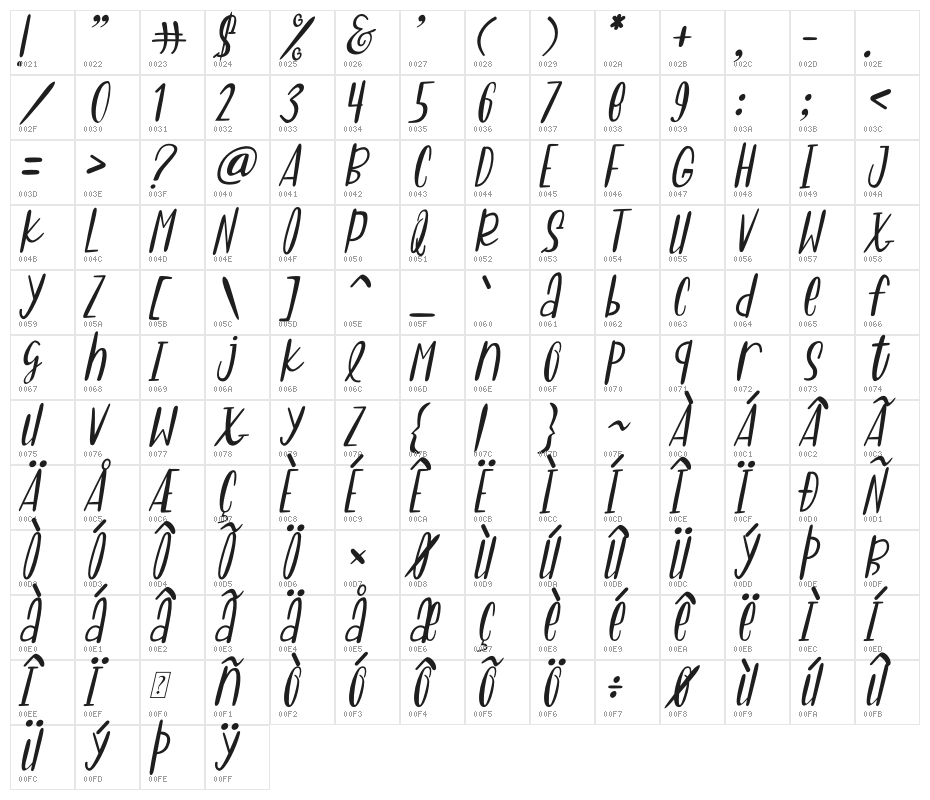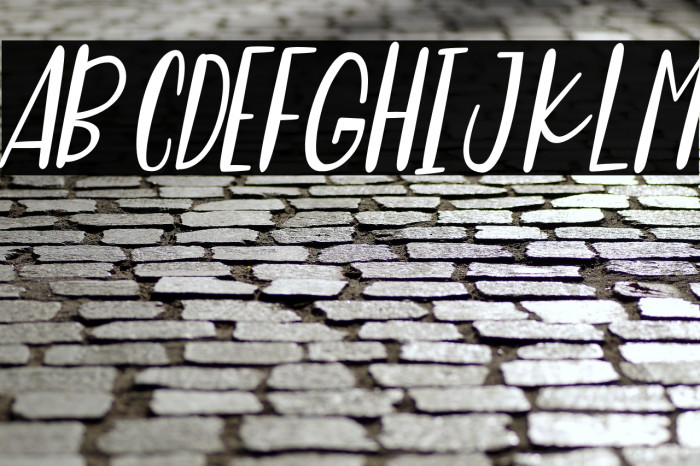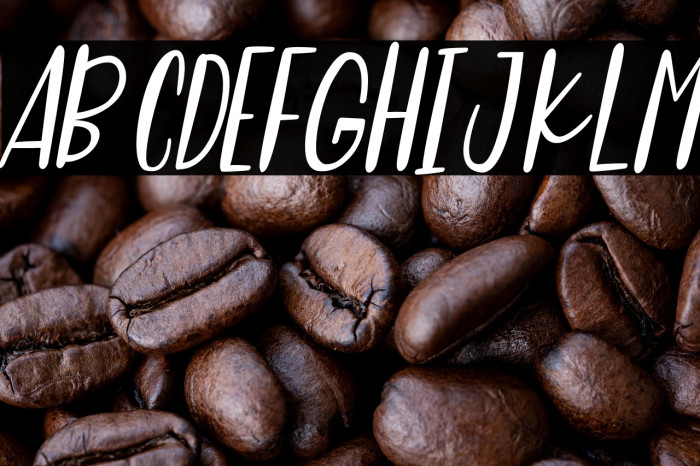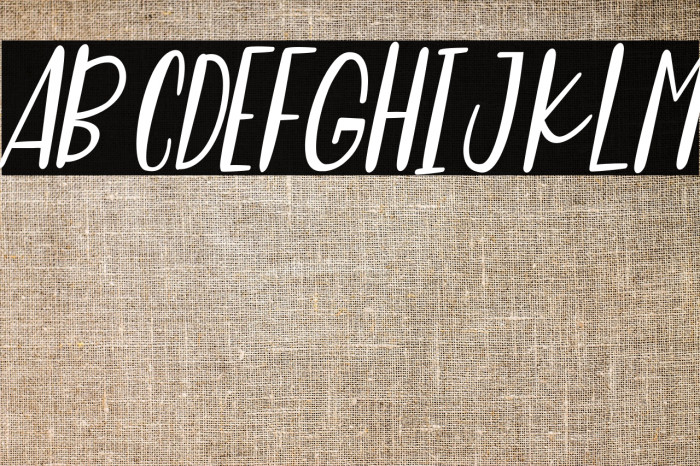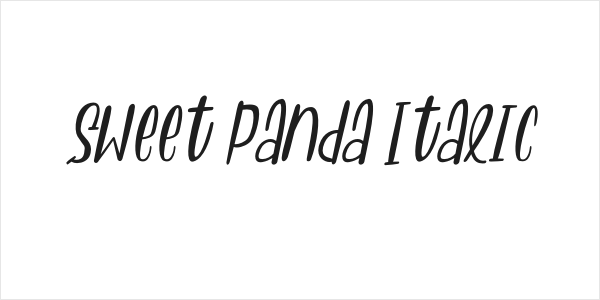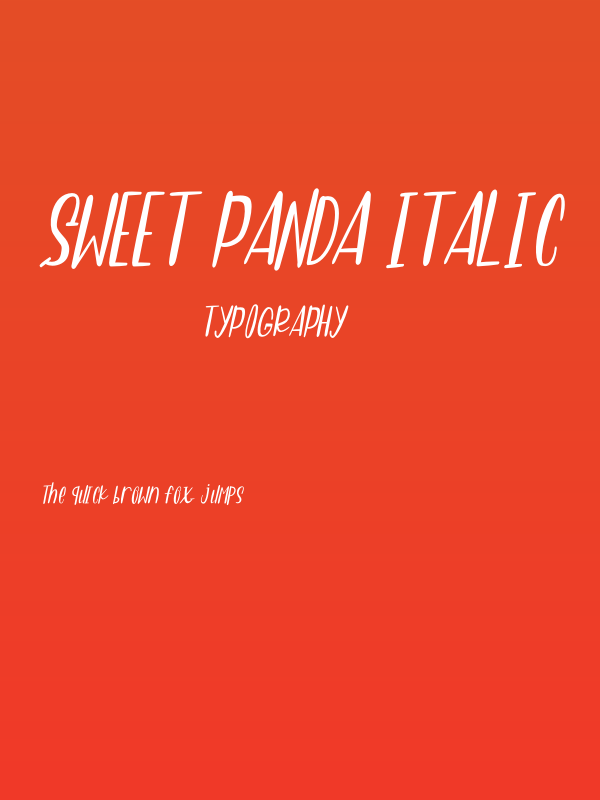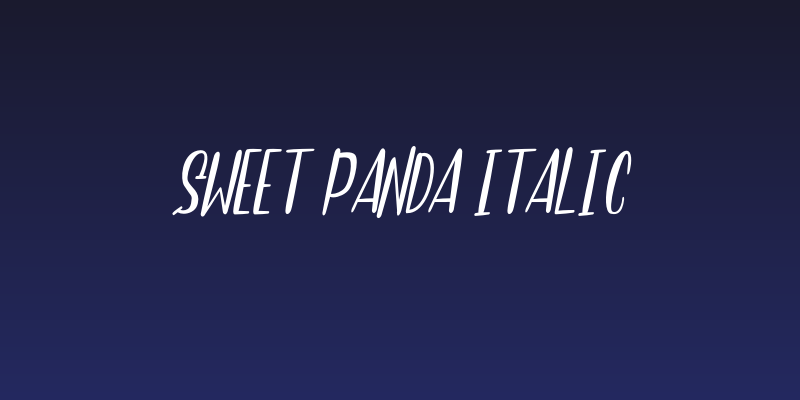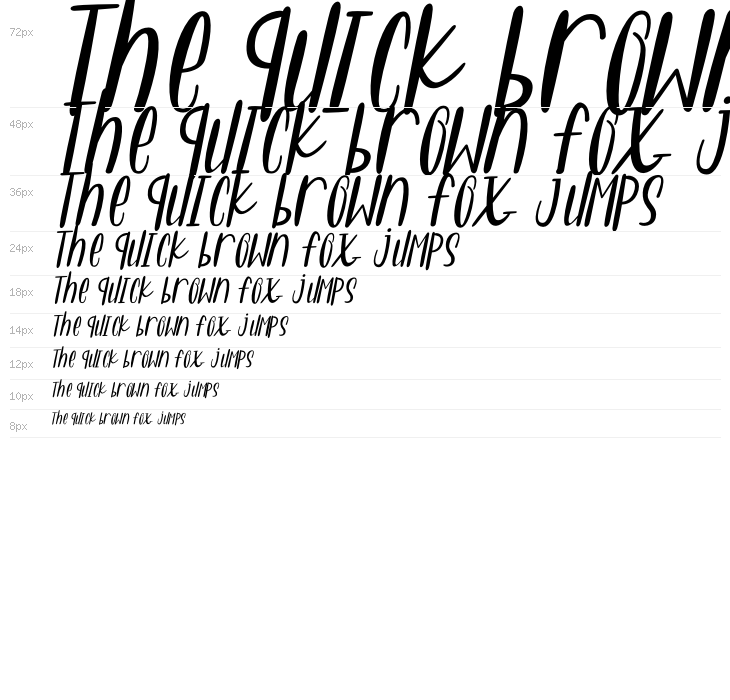
Sweet Panda Italic Font
Sweet Panda Italic Description
This font features a playful and dynamic style with a handwritten appearance. The letters are slanted, giving it an italicized look, and the strokes vary in thickness, adding a lively and energetic feel. The uppercase and lowercase letters maintain a consistent flow, while the numbers and special characters complement the overall design. The font's unique character shapes and fluidity make it stand out, making it suitable for creative and informal projects.
| Proposed Projects | Ideal for greeting cards, invitations, playful branding, and social media graphics. |